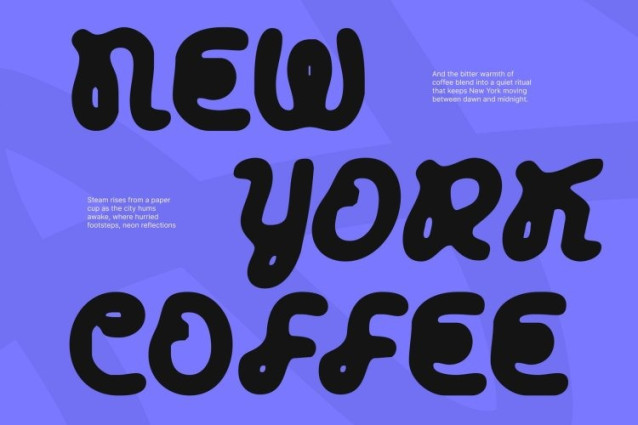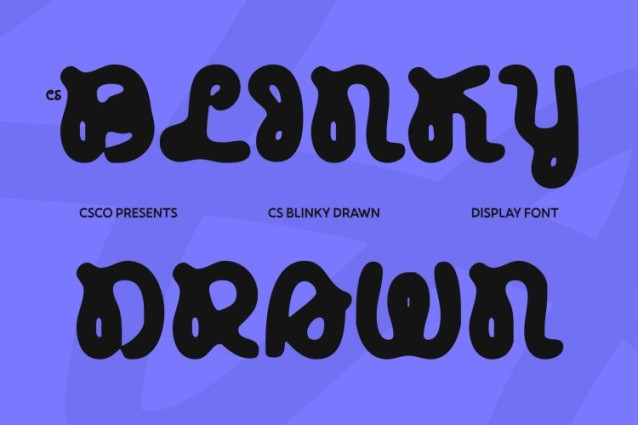
CS Blinky Drawn Font
CS Blinky Drawn Font This is a modern experimental display font created to spark creativity and originality. Its unconventional letterforms and quirky personality break away from standard typography, delivering a bold visual identity that feels fresh, imaginative, and full of character.
Distinctive Shapes with Hand-Drawn Expression
Each letter features a unique rhythm that blends clean geometric structure with playful, hand-drawn irregularities. This contrast creates an expressive aesthetic that feels artistic yet approachable. The drawn effect adds warmth and individuality, turning simple text into a dynamic visual statement.
Perfect for Playful and Artistic Branding
This shines in creative applications such as posters, logos, editorial layouts, and social media graphics. Its eye-catching shapes bring originality and energy to brand identities, event visuals, and promotional designs that aim to stand out with confidence and creativity.
Versatile, Fresh, and Full of Personality
Despite its experimental nature, this font maintains strong readability and flexibility. It balances fun expression with practical usability, making it ideal for modern designers seeking bold, joyful, and innovative typography that celebrates freedom, imagination, and youthful design spirit.